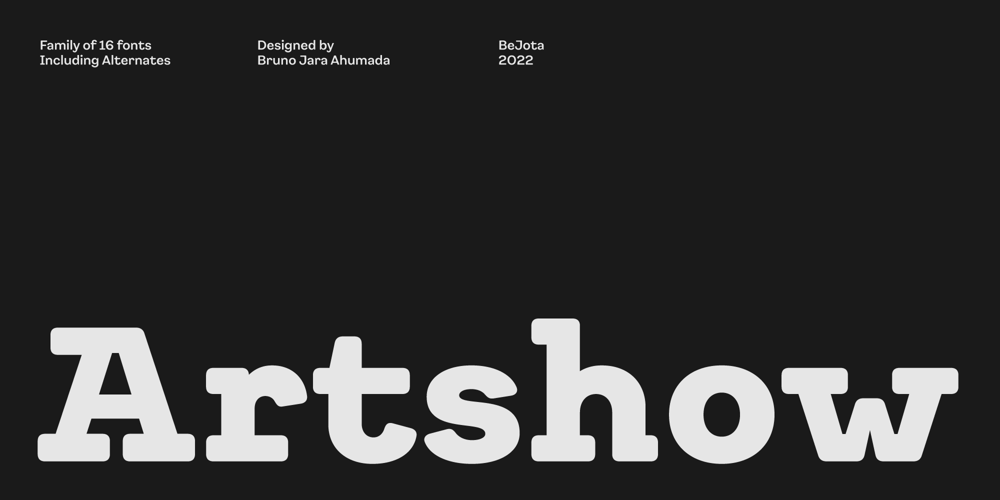
Artshow
Artshow font
Artshow Font Family was designed by Bruno Jara Ahumada and published by BeJota. Artshow contains 16 styles and family package options. Artshow is the updated and rounded version of “Galeria”, a slab font inspired by monospaced typefaces, organic architecture, and contemporary art galleries. The union between pronounced curved and straight shapes results in a typography with strong character. This font family comes with 18 styles and is ideal for editorial design, branding and posters.